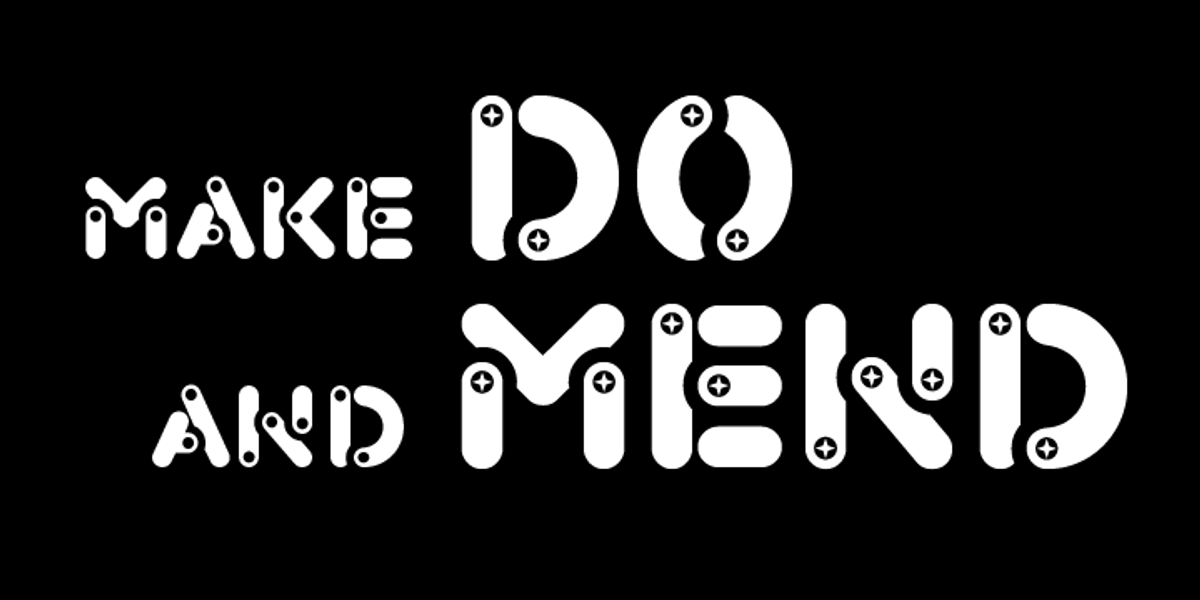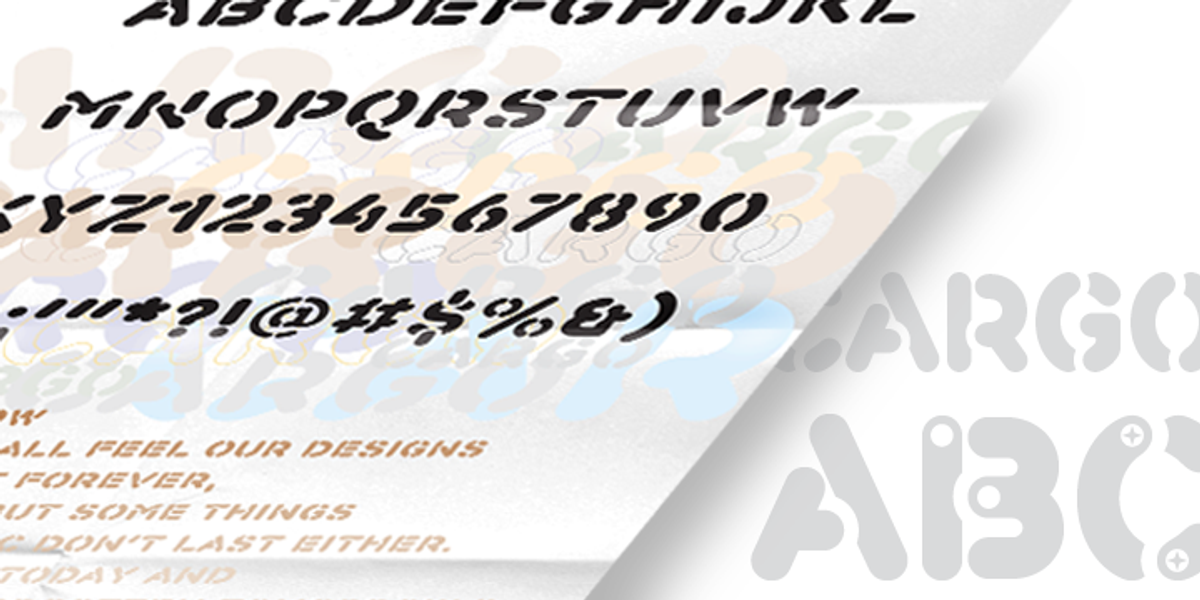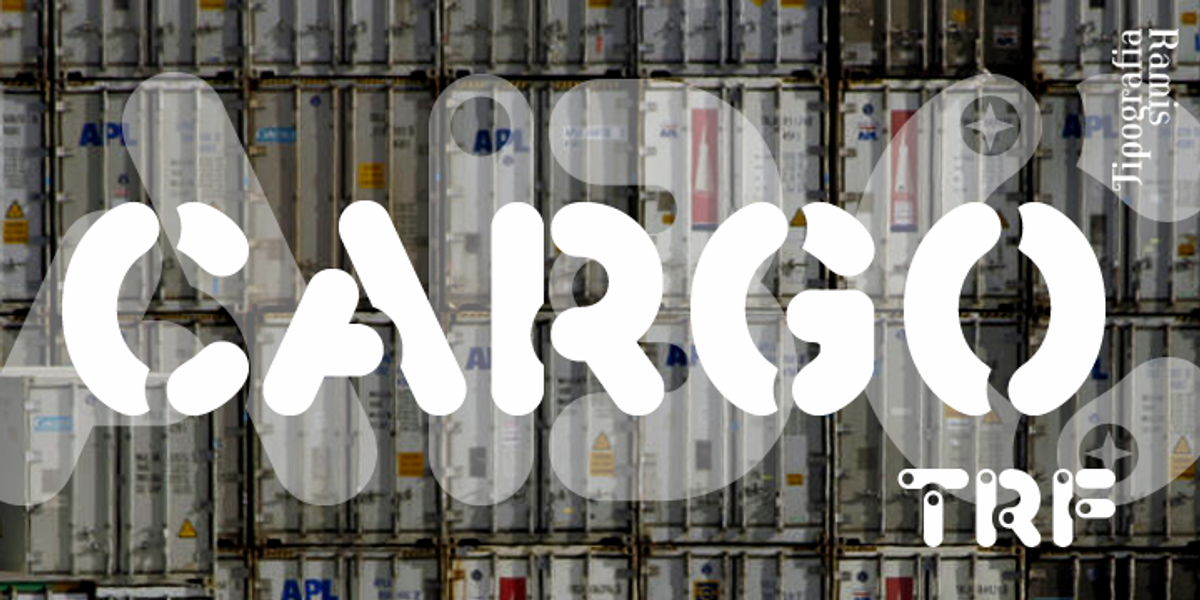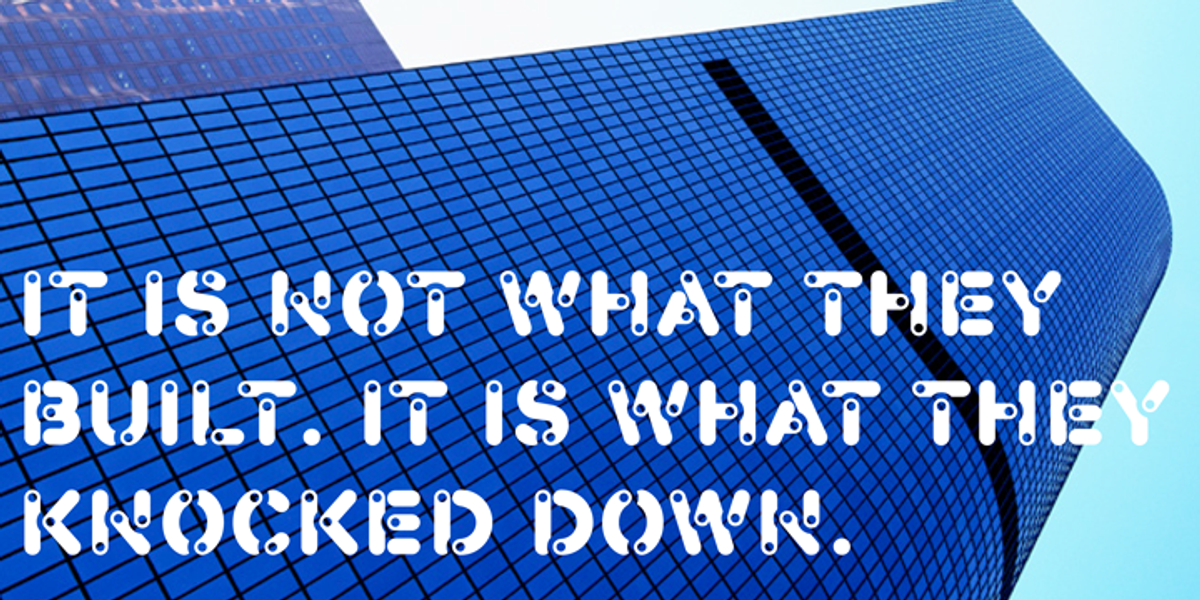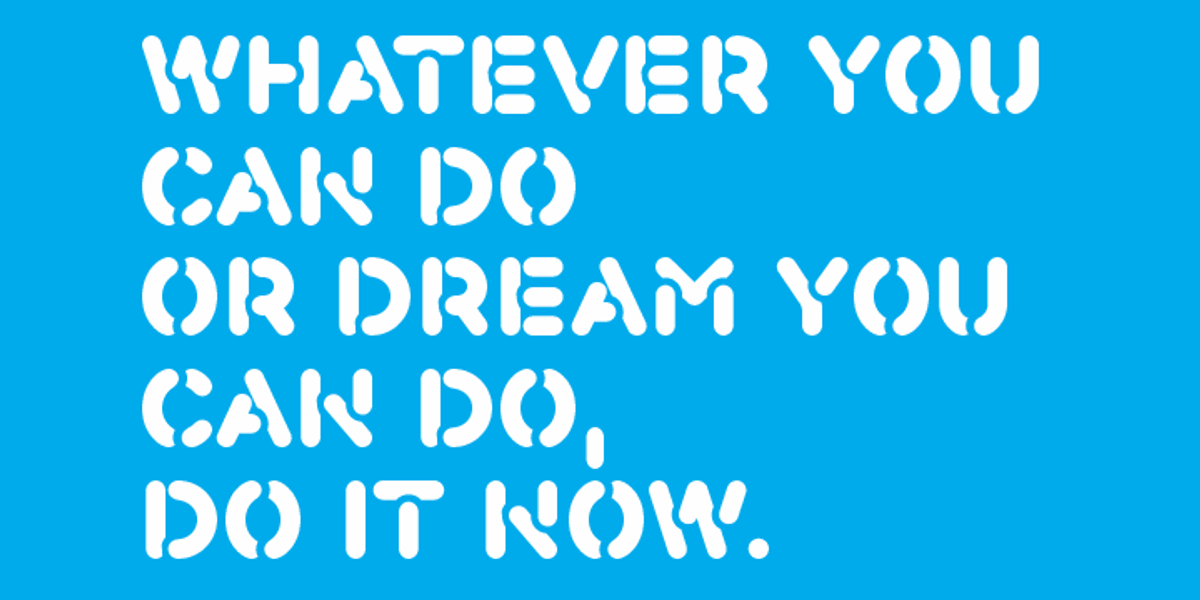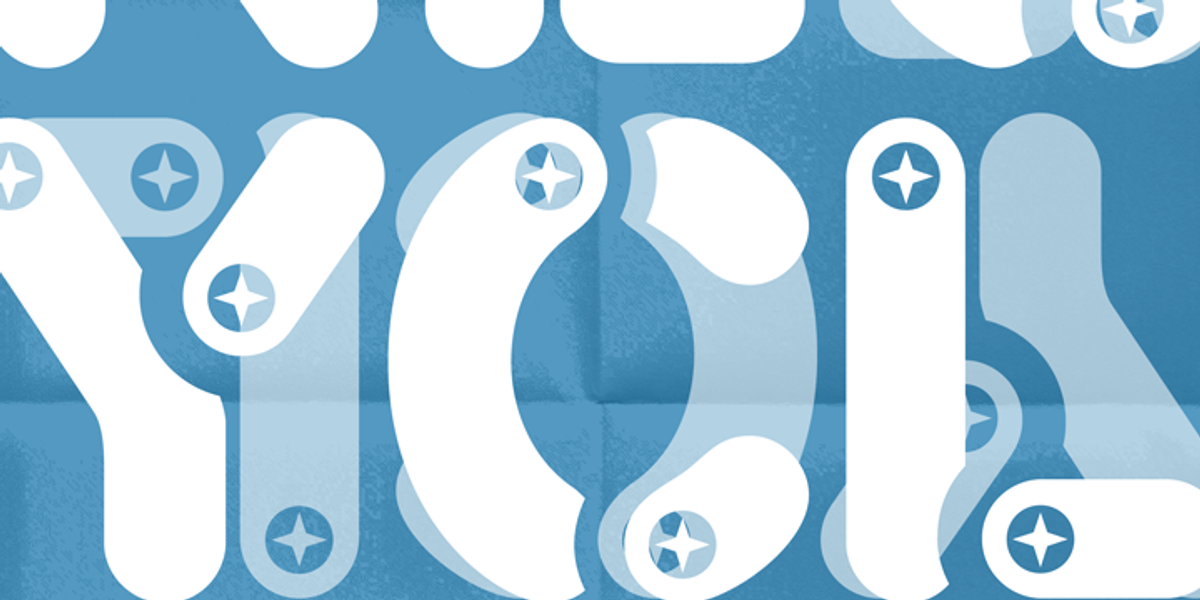
Cargo TRF
Cargo TRF is a stencil typeface designed for display use. It features a bold, geometric style and comes in three variations: a plain version, a version with punch-out holes, and a version resembling screw heads. The font's industrial aesthetic makes it suitable for headlines, posters, and branding materials with a military or technical theme.